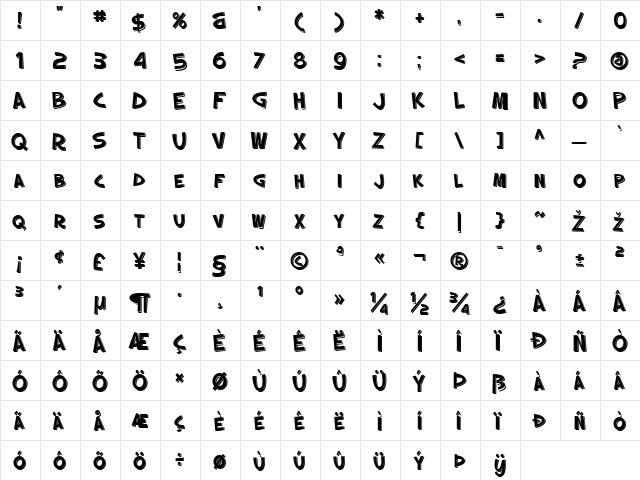
SF Slapstick Comic SC Shaded Regular
Design Context for SF Slapstick Comic SC Shaded Typeface
SF Slapstick Comic SC Shaded trades formality for fun, with bouncy, characterful letterforms that bring warmth and energy to any project.
Font Pairing: Pairs well with a rounded or humanist sans for body copy, maintaining the friendly tone without relying on SF Slapstick Comic SC Shaded to carry extended reading.
Pro Tip: Use SF Slapstick Comic SC Shaded at larger display sizes where its expressive character can land. Pair with a clean, simple sans for body copy to maintain readability.